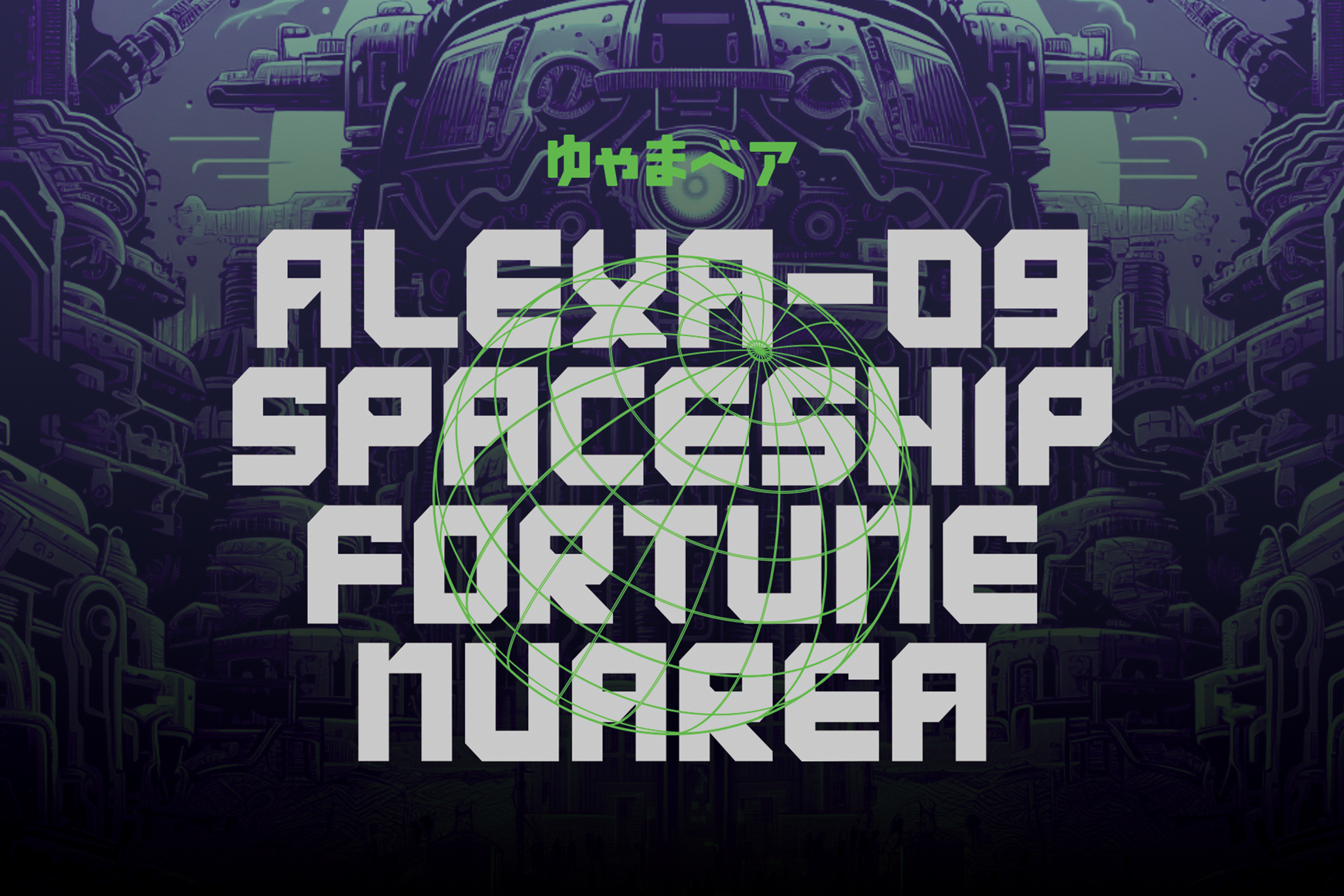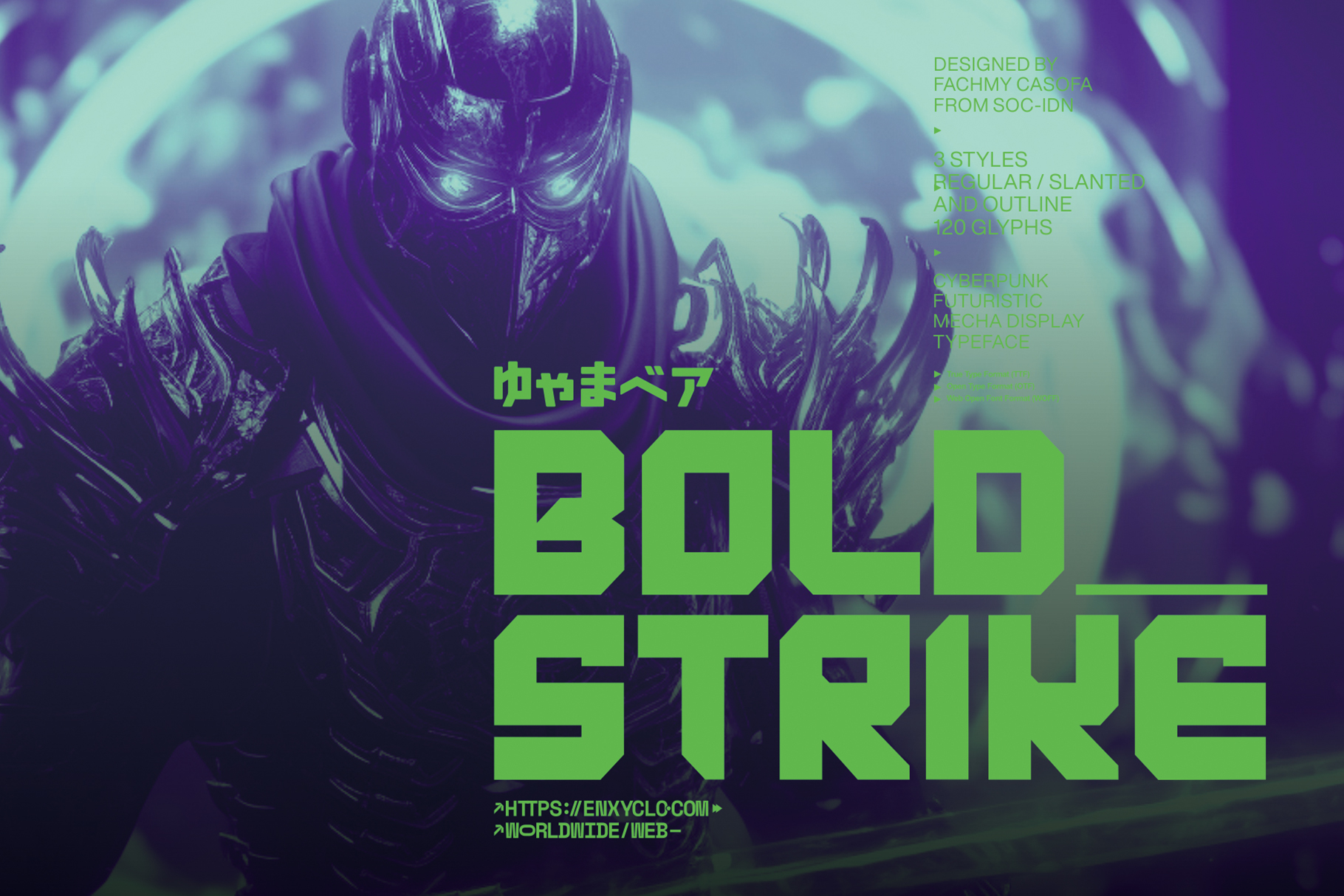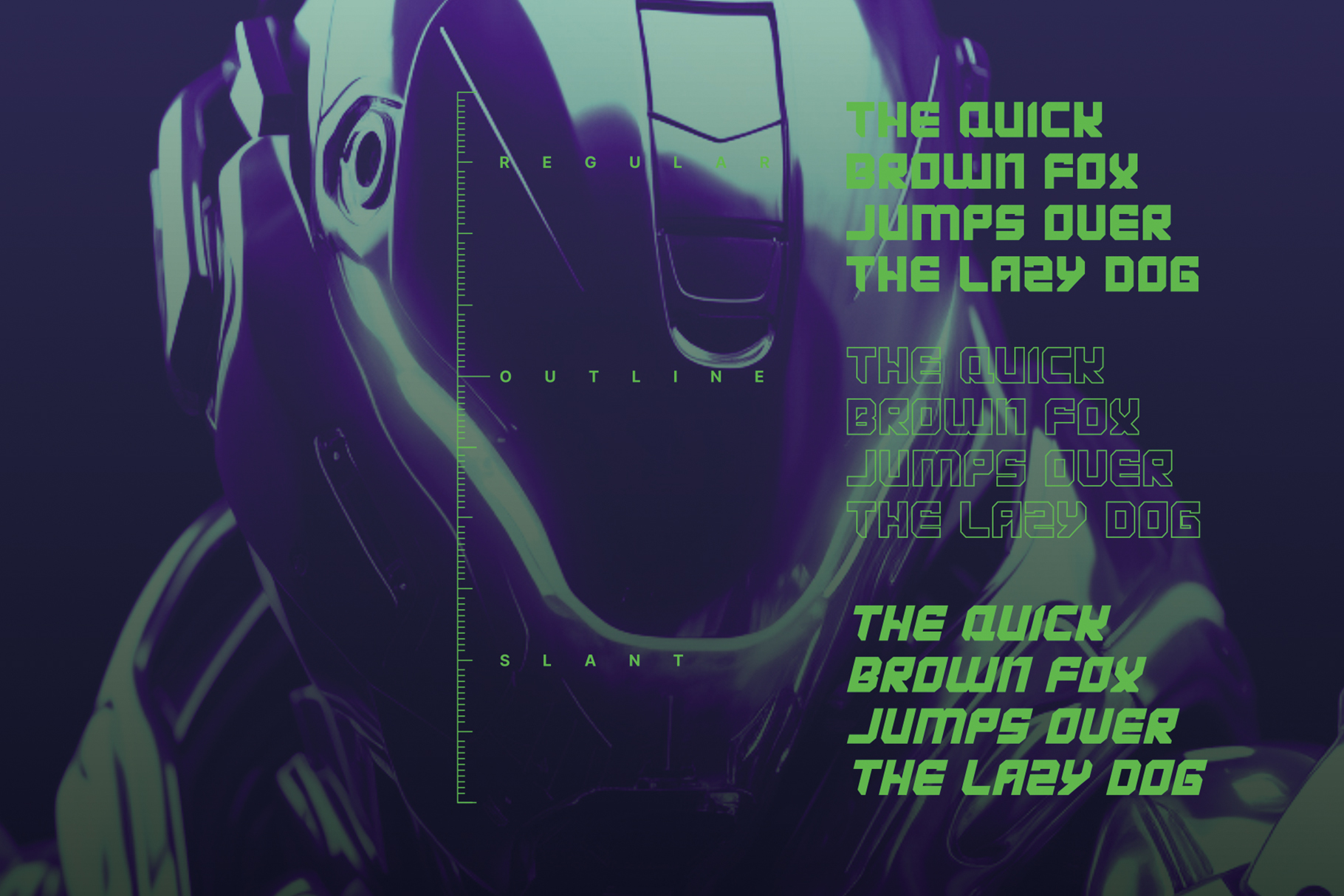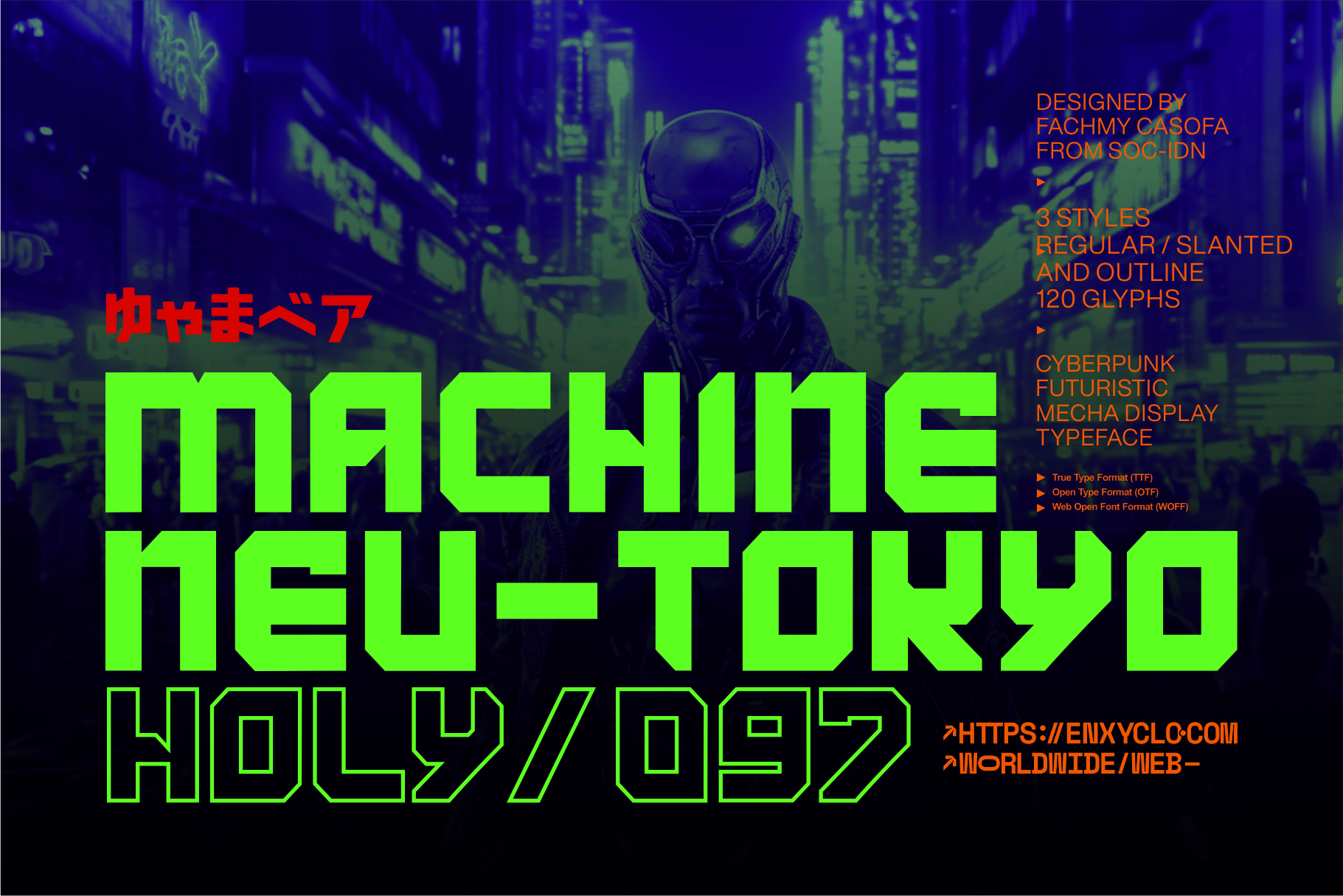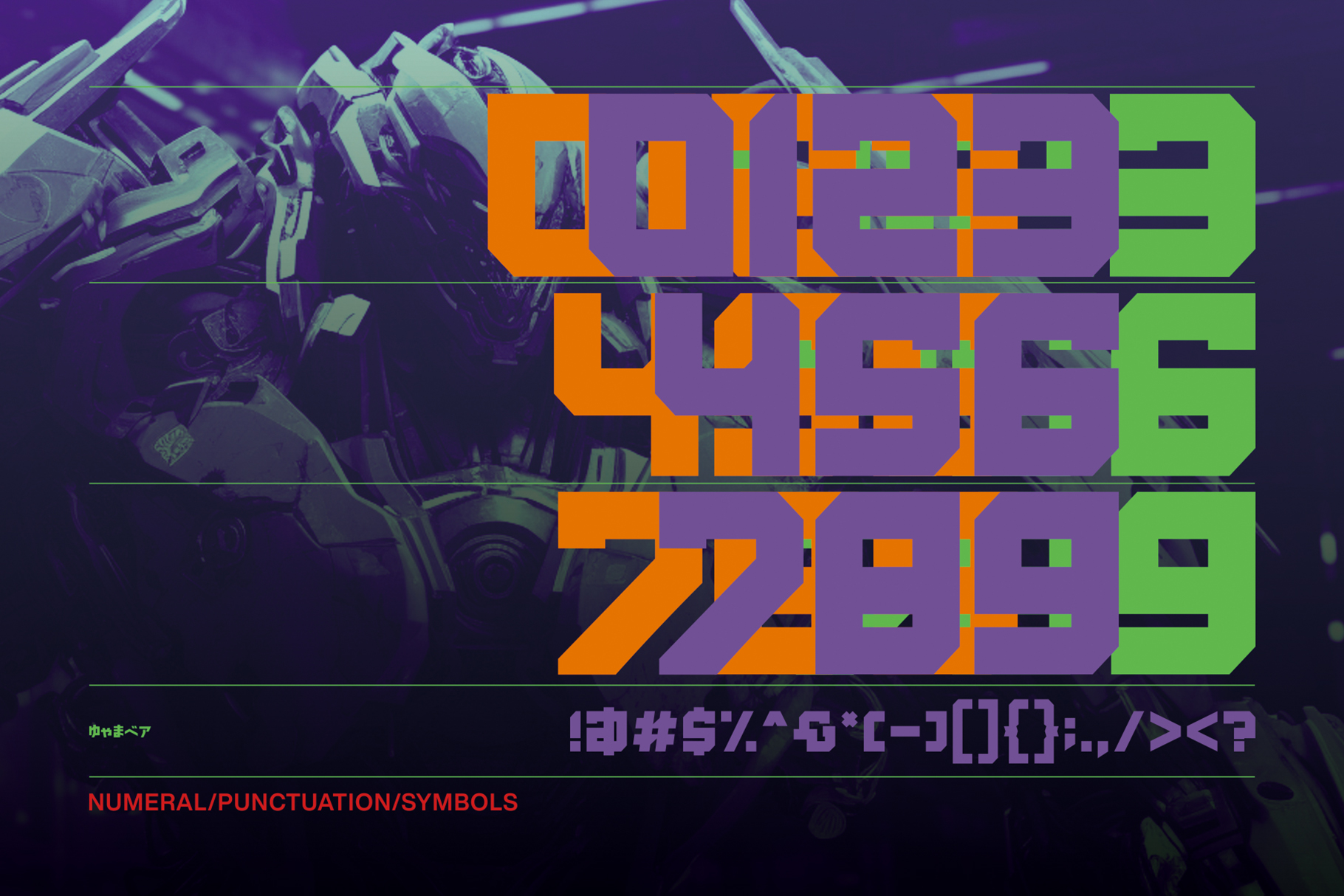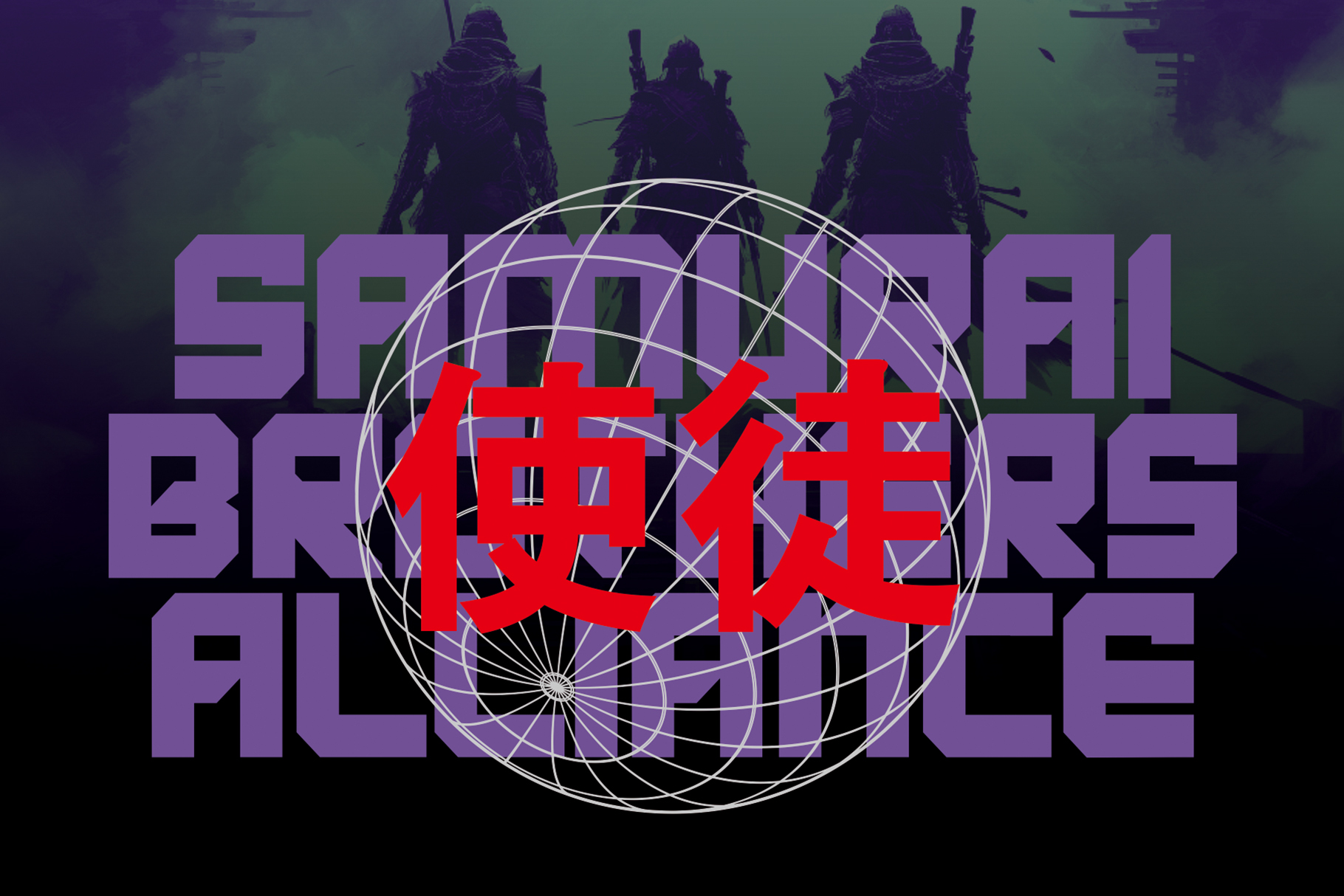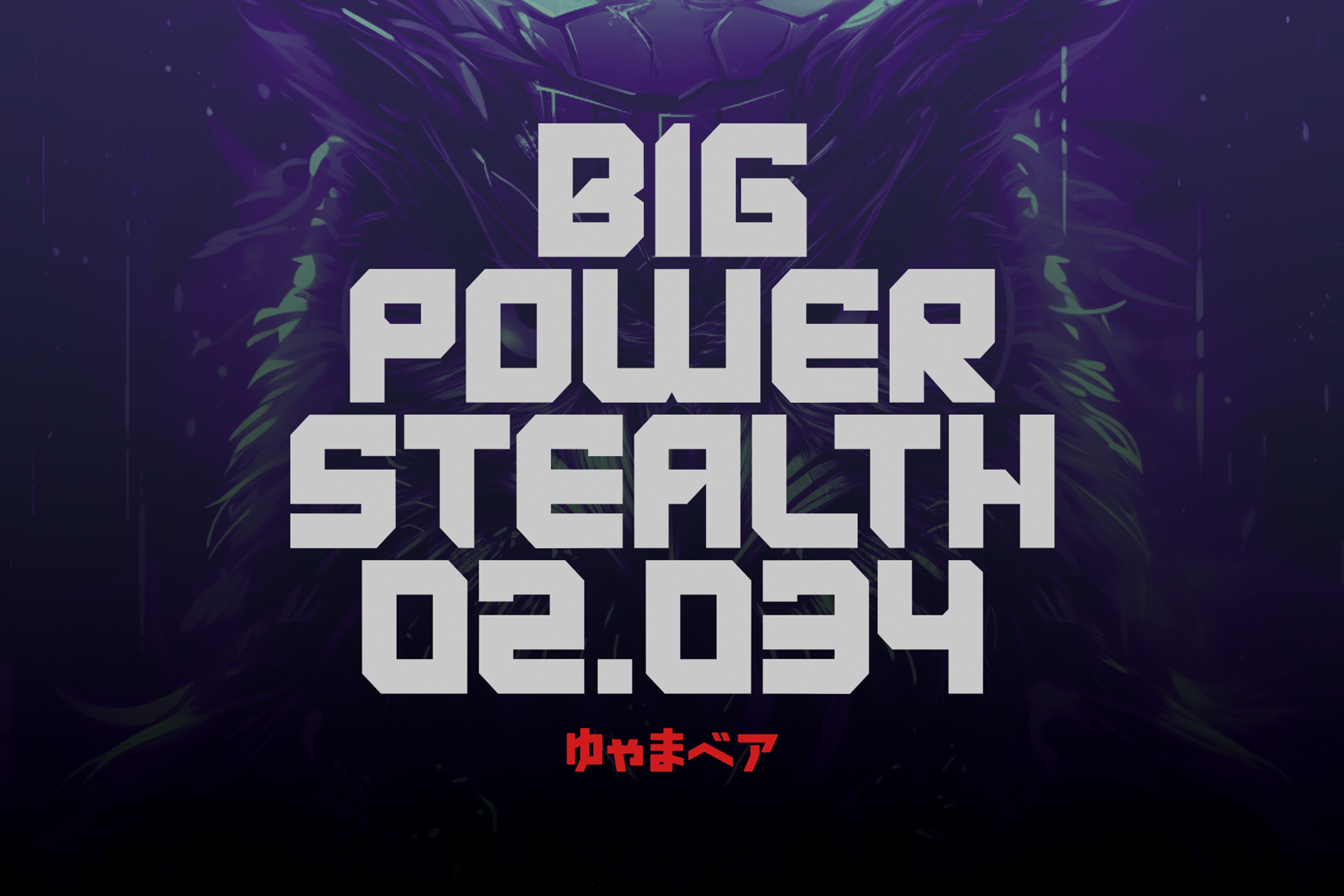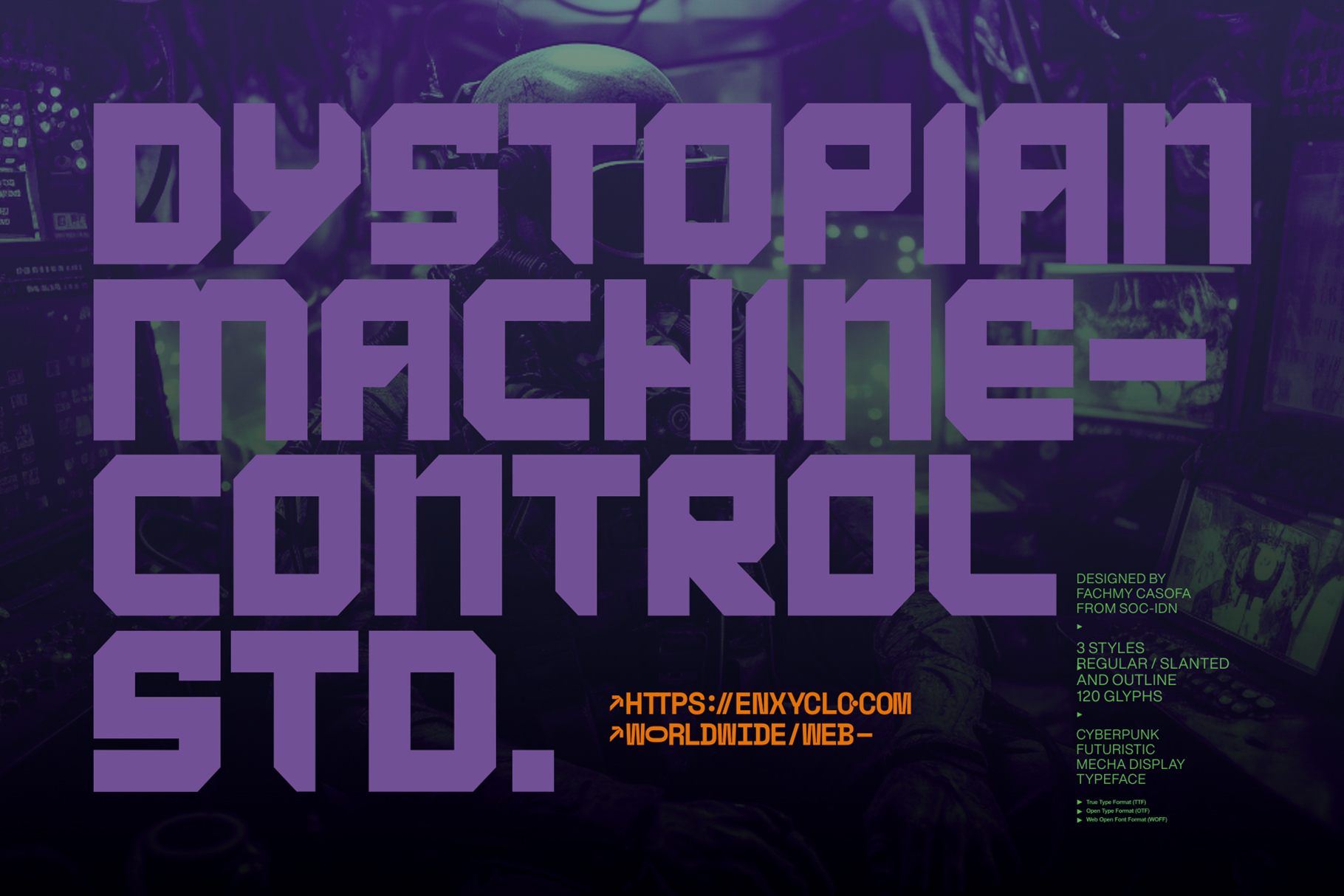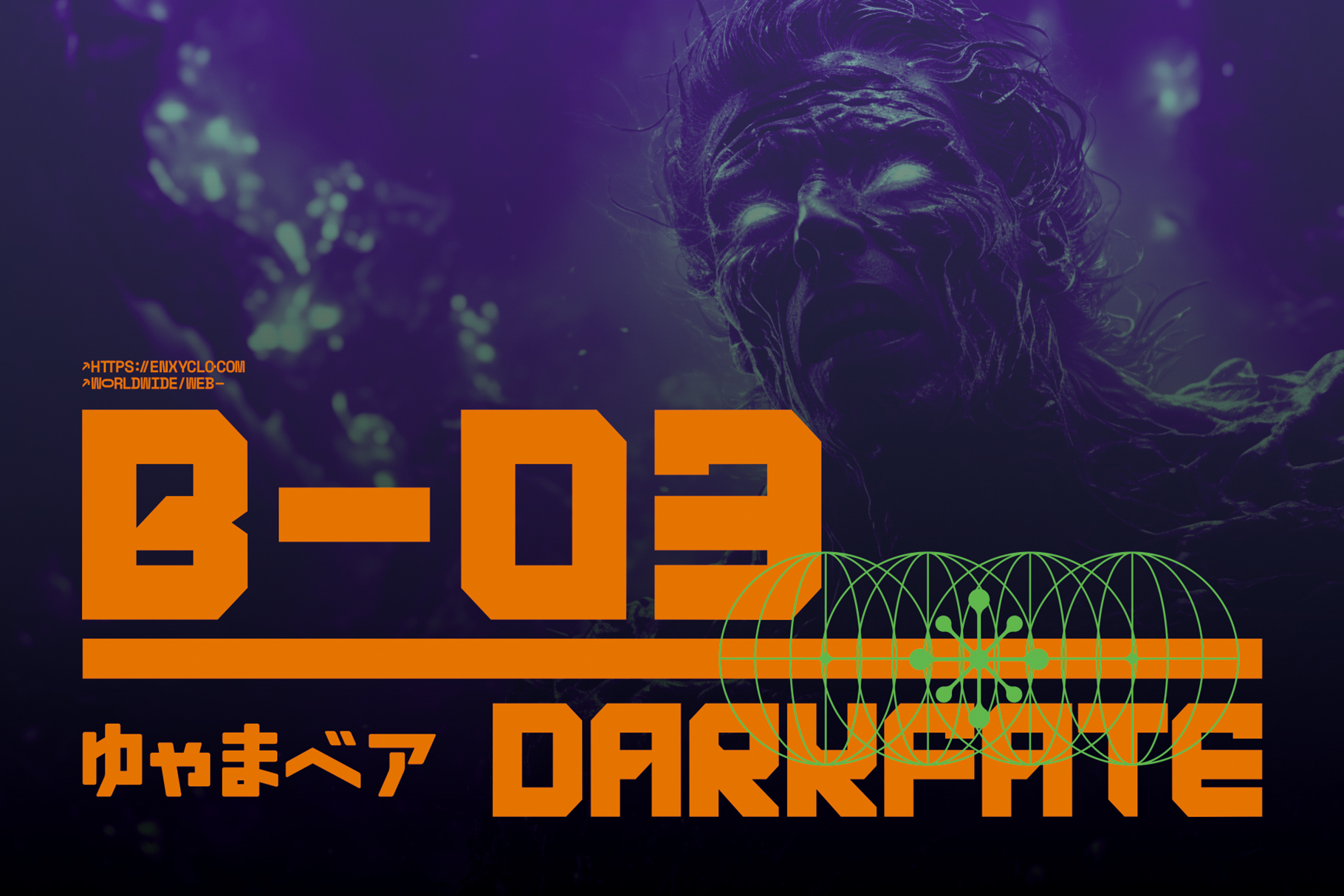
Karixby – Futuristic Techno Cyberpunk Font
KARIXBY is futuristic display font. The design of typeface will make your project more powerful and inspiring. It is perfect for headline, billboard, magazines, website, titles, poster, branding, thumbnail, t-shirt design, street wear design, and creative logos, or any project that needs futuristic touch. With this beautiful futuristic display font, absolutely you can make your project stand out from the rest. See the previews above to get some inspiration on how to use them.
3 Styles: Regular, Outline and Slant
Contains 120 Glyphs for Each Style (Total 360 Glyphs)
Uppercase, Numeral & Punctuation